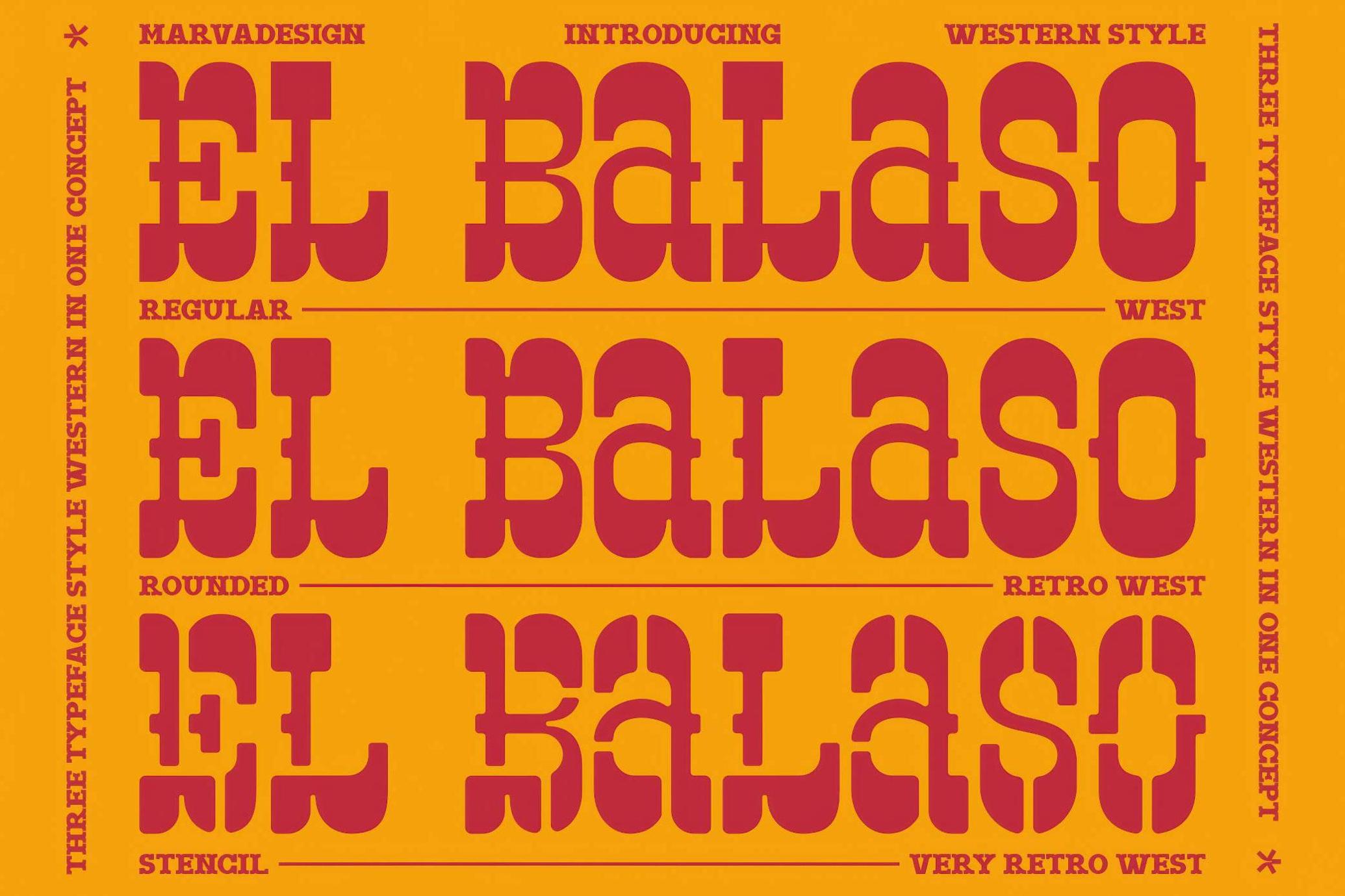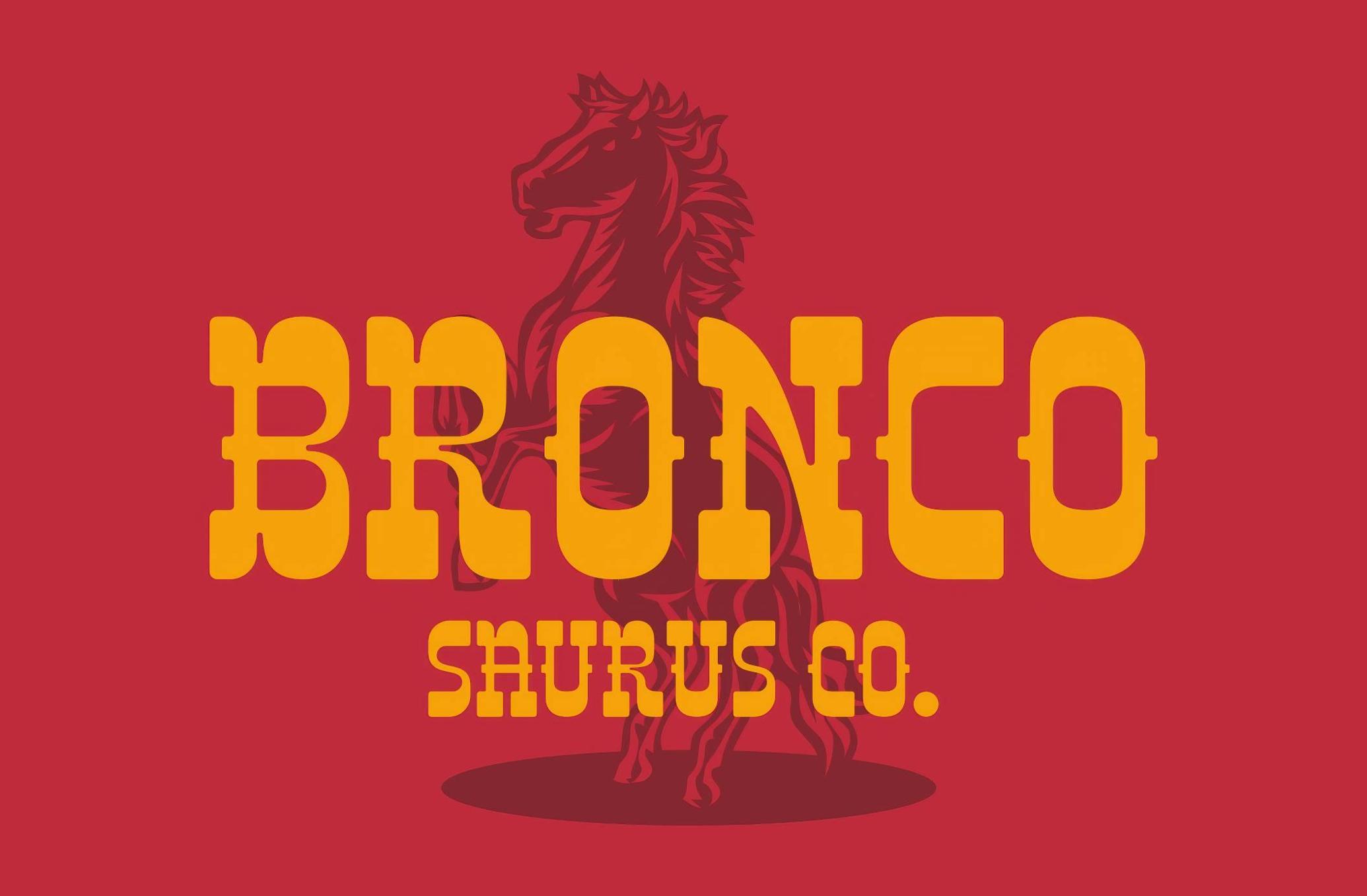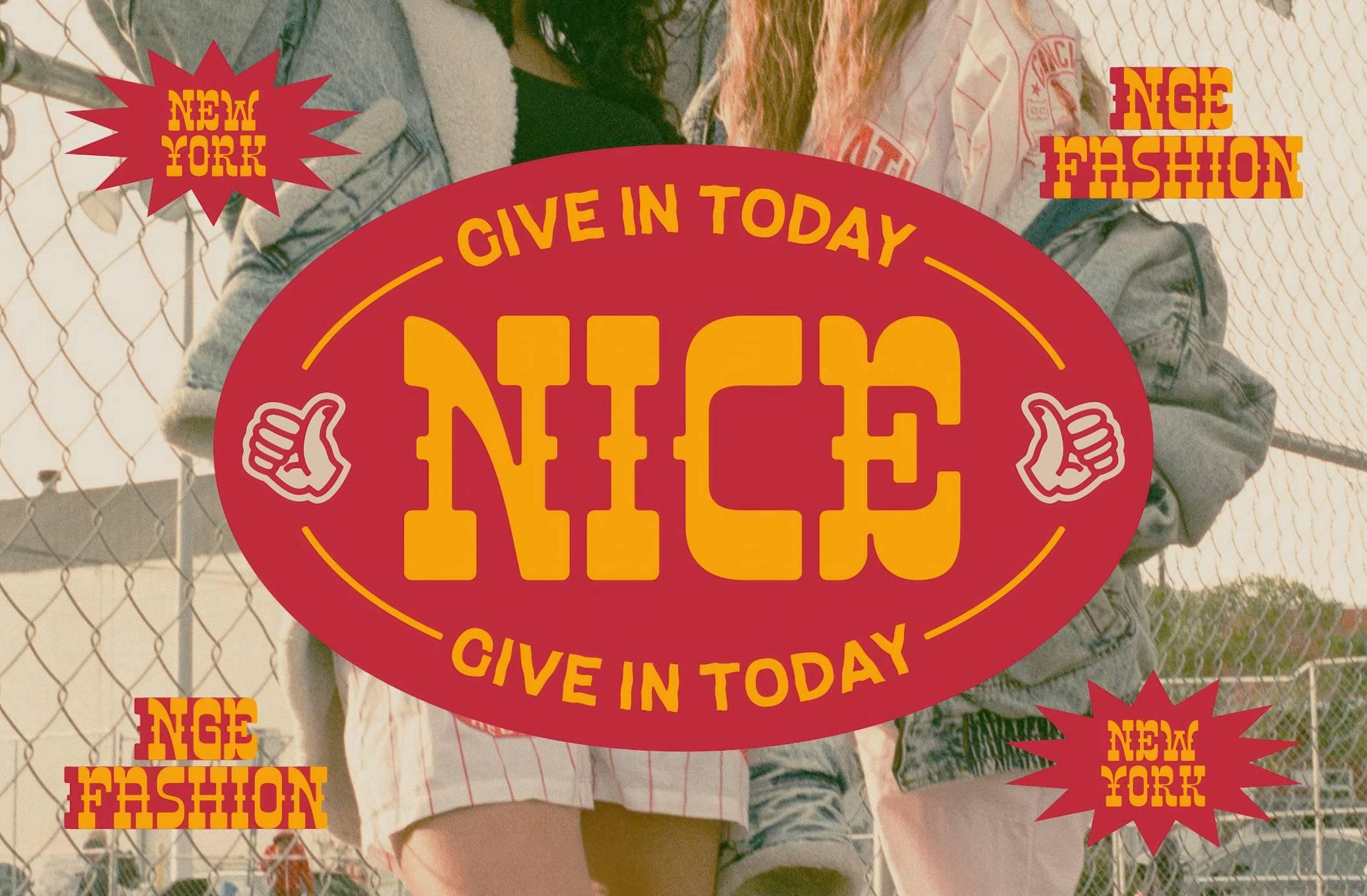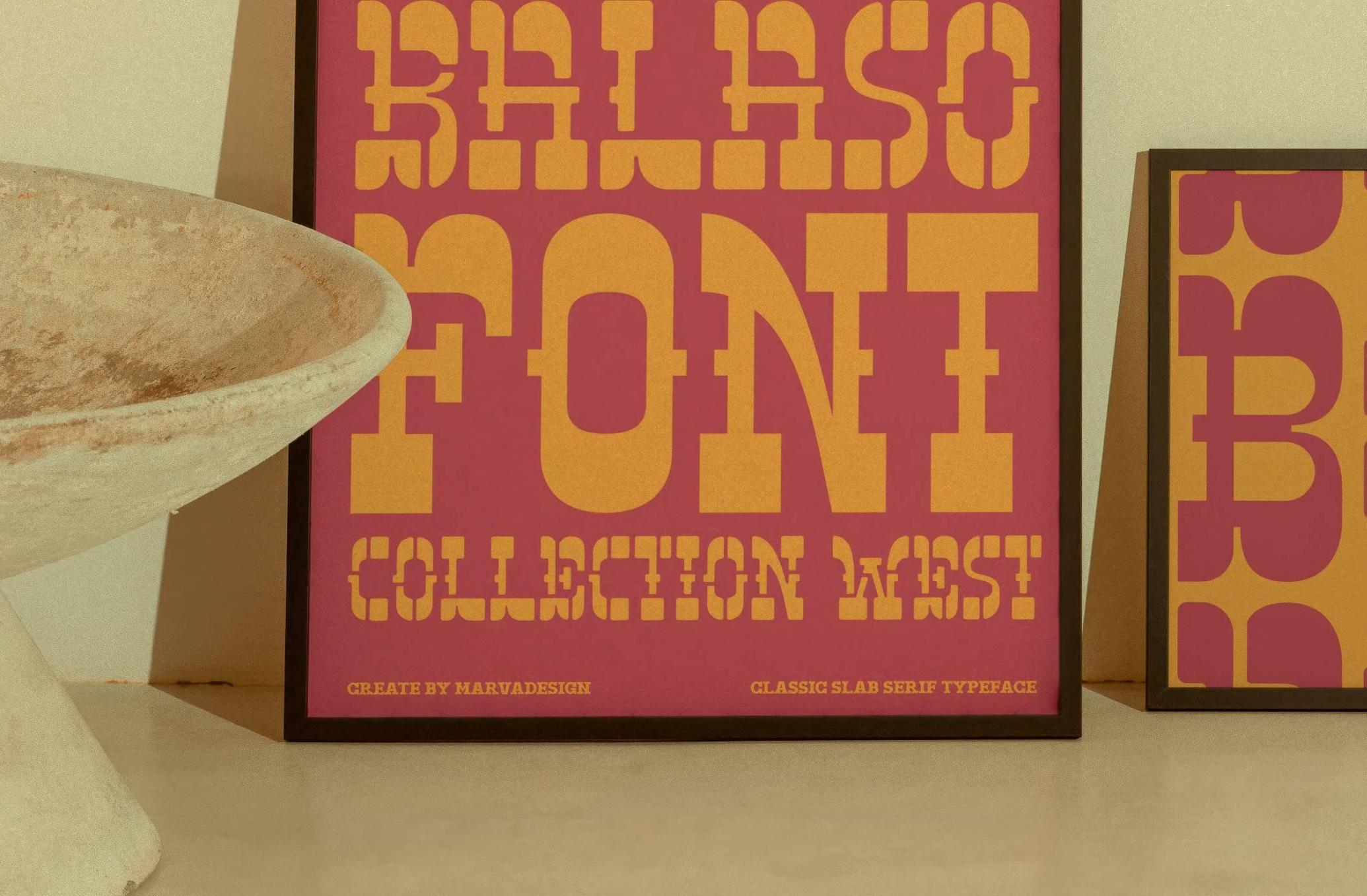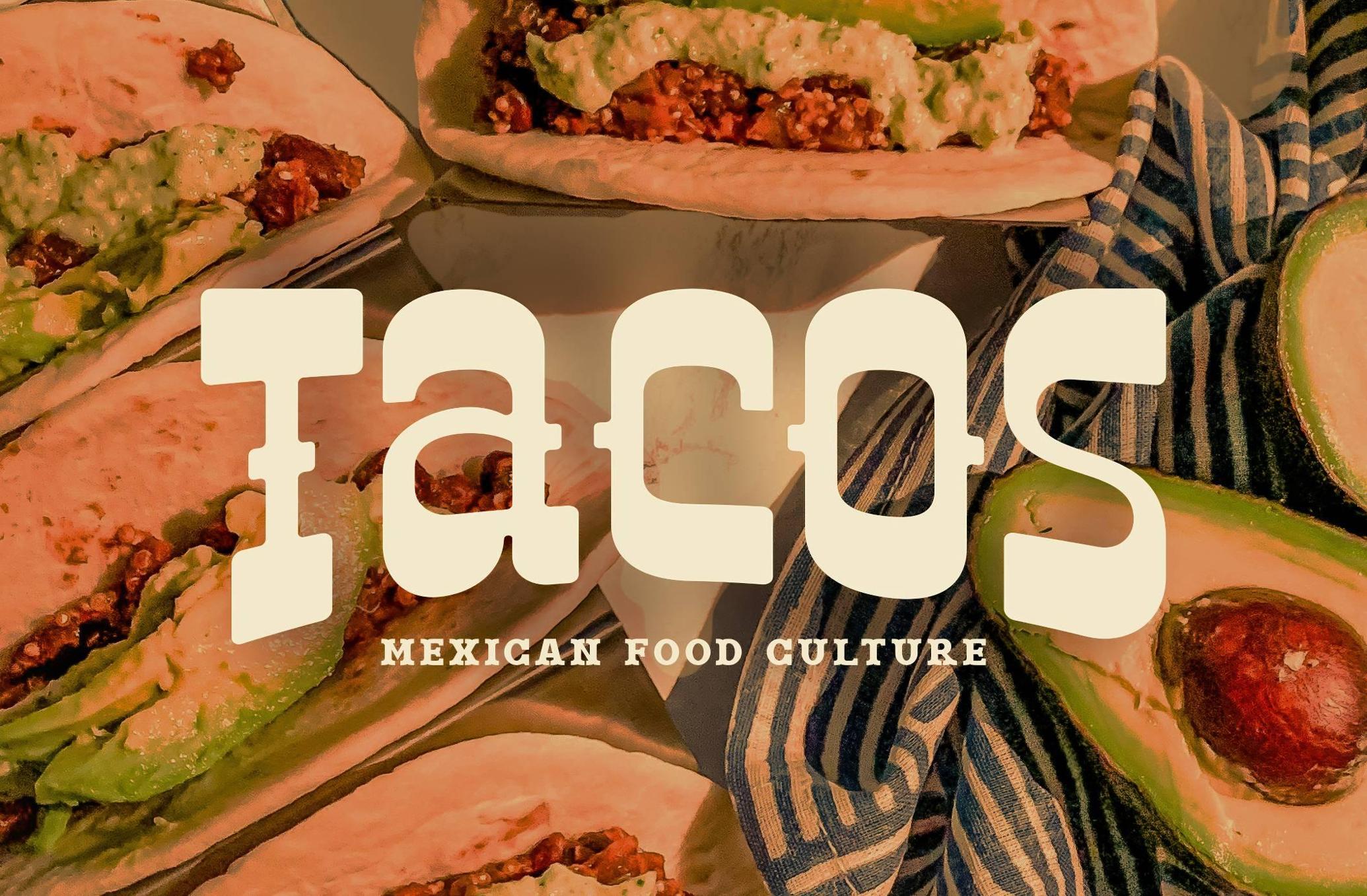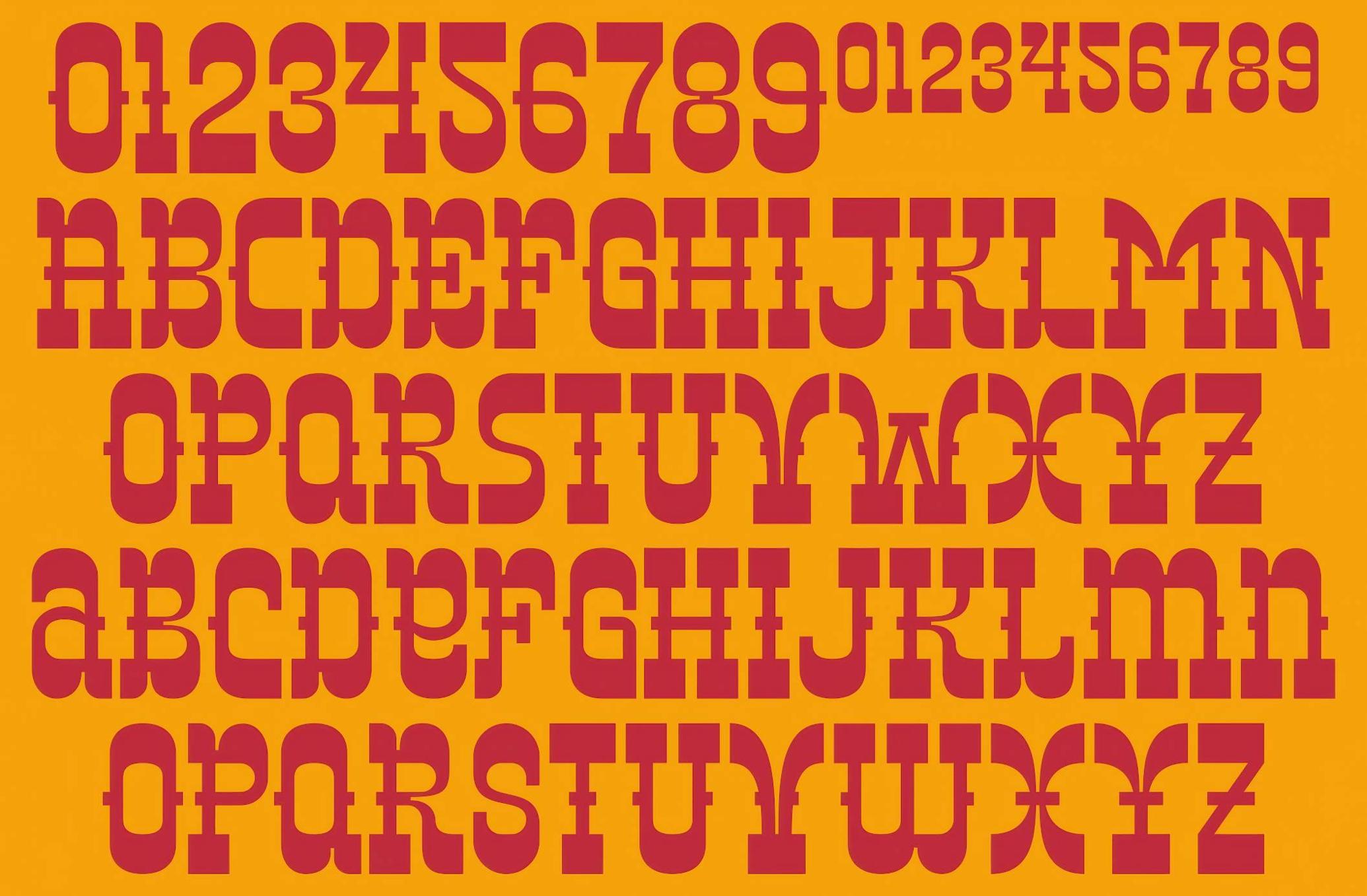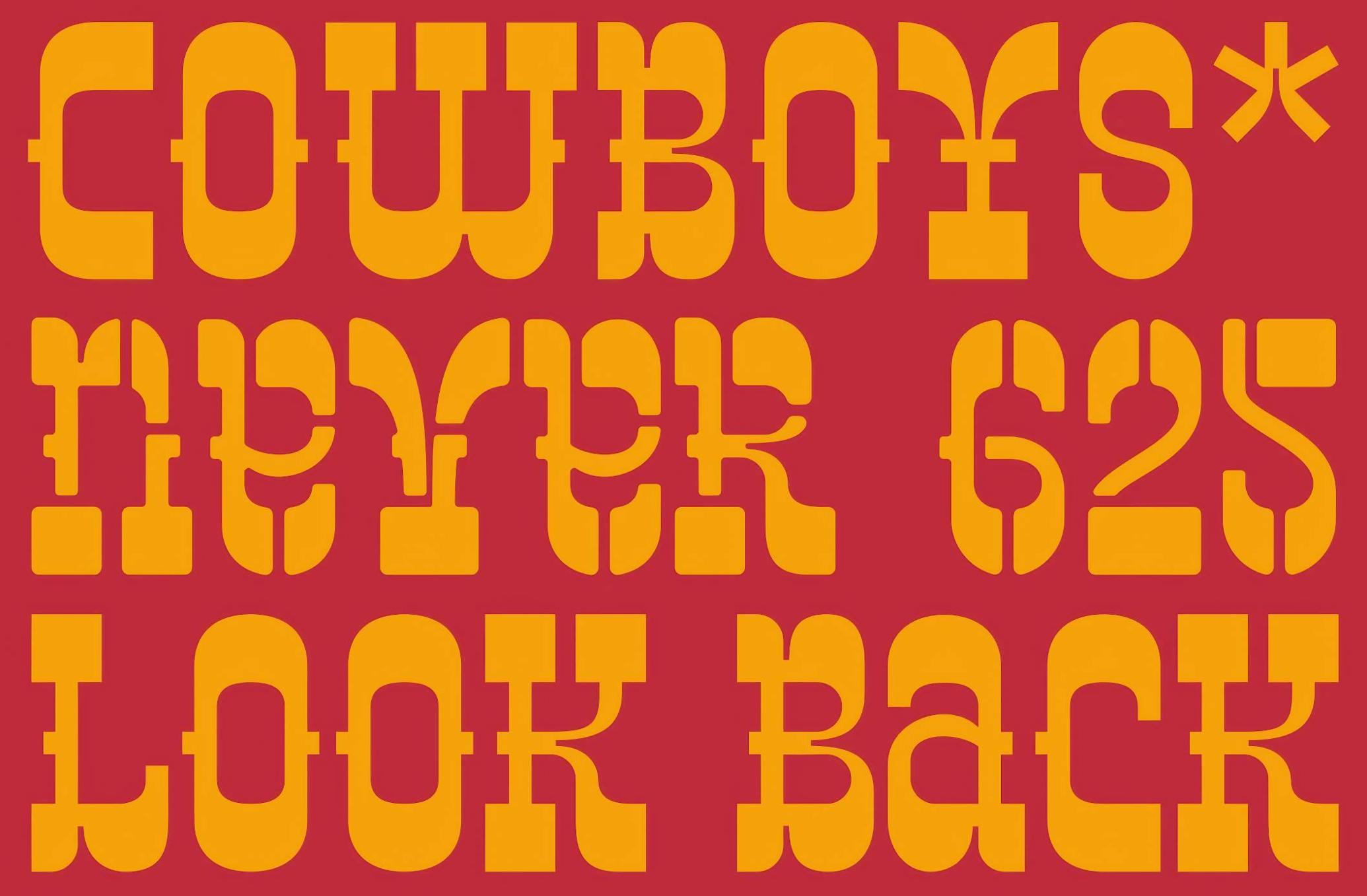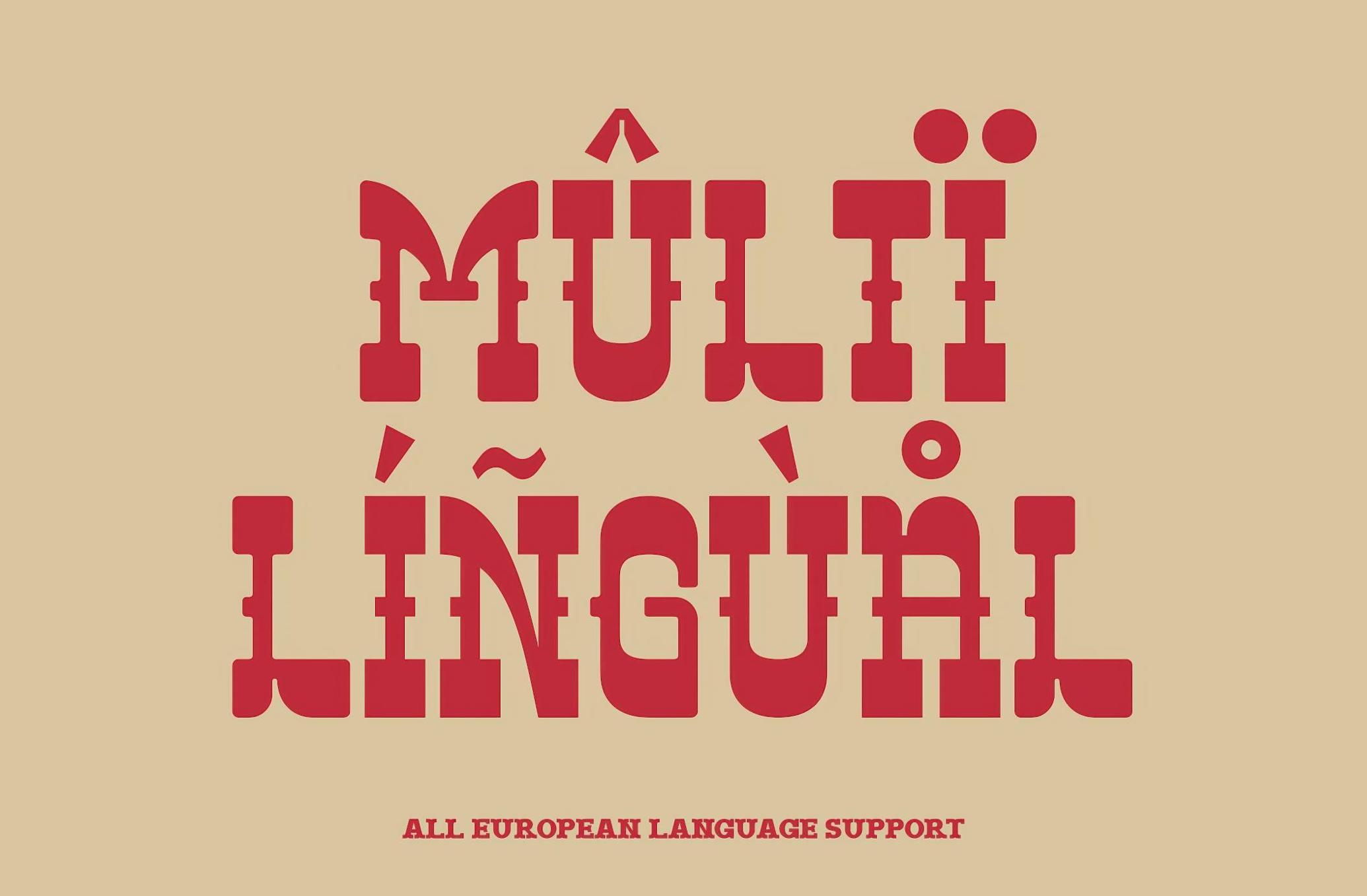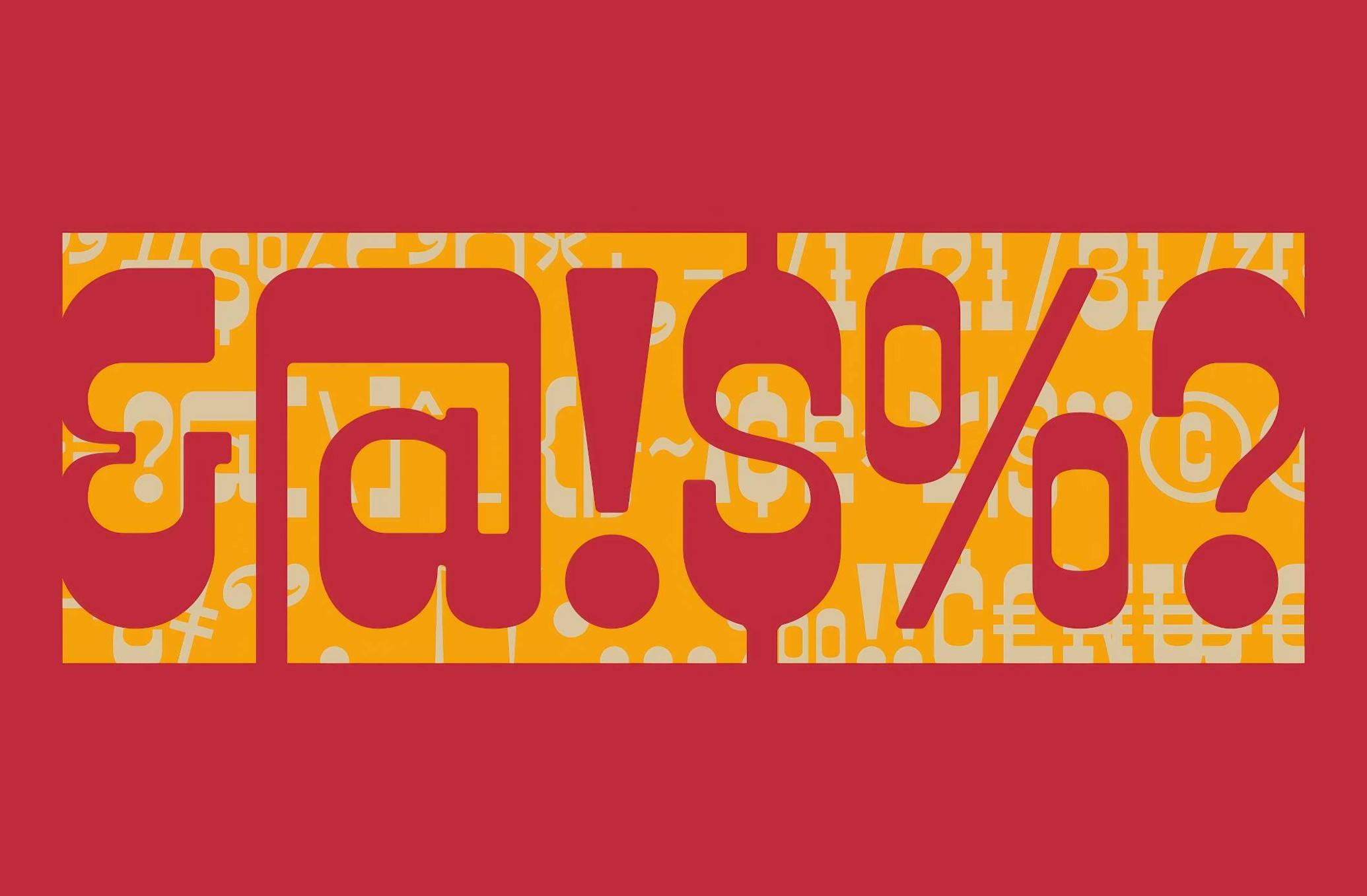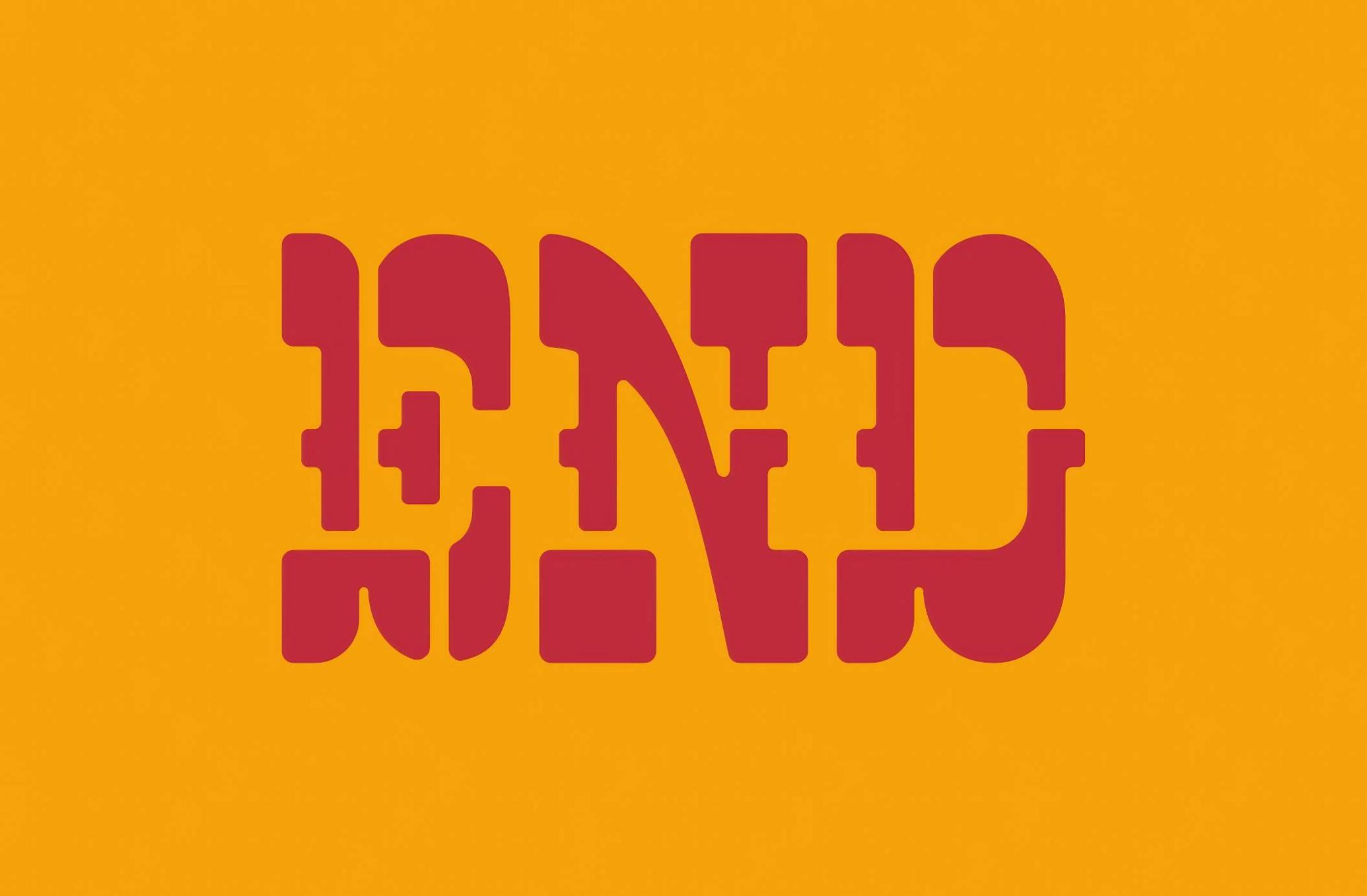
El Balaso — Serif Western Font
El Balaso is a font for standout headlines with wide, confident letterforms and sturdy slab serifs, designed to capture the classic Western design. Subtle decorative curves soften its strong structure, adding a touch of character that makes it feel vintage. It’s perfect for brand and logo design, fashion and music editorials, posters, merchandise, website headlines, or social media visuals.
The typeface comes in three styles: Regular, Rounded, and Stencil. It is available in OTF, TTF, WOFF, and WOFF2 formats, with a complete character set and multilingual support.